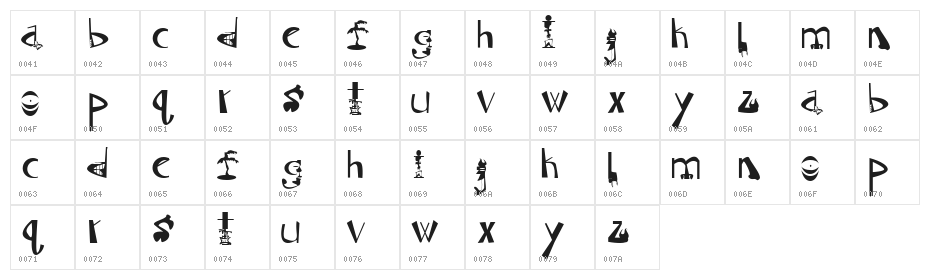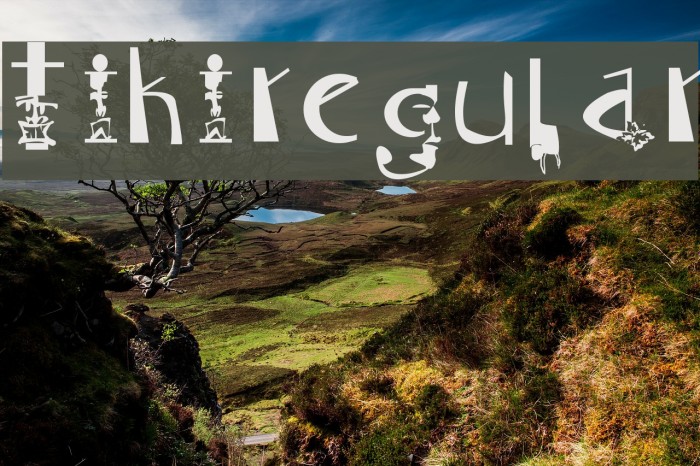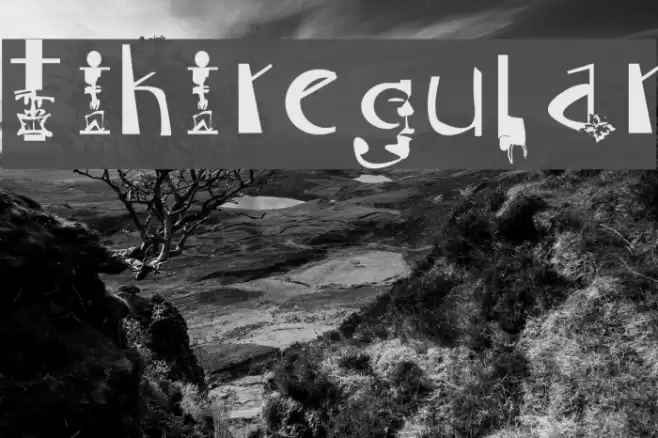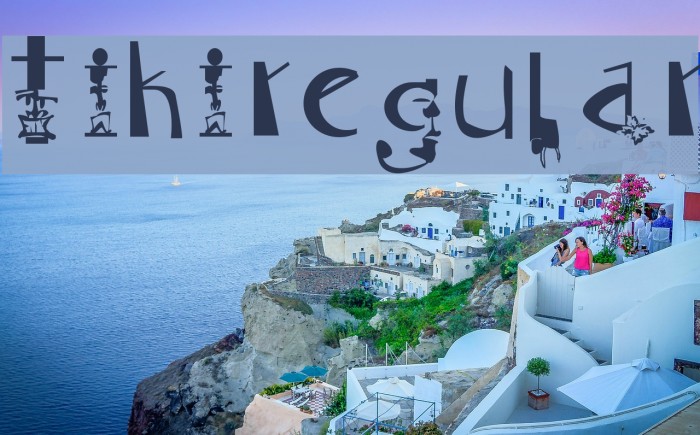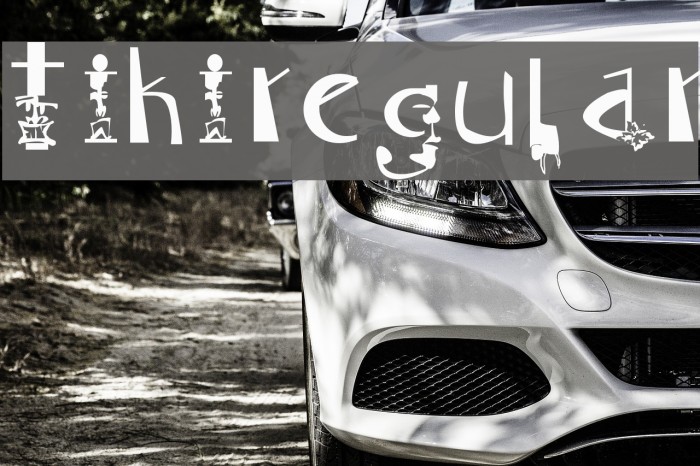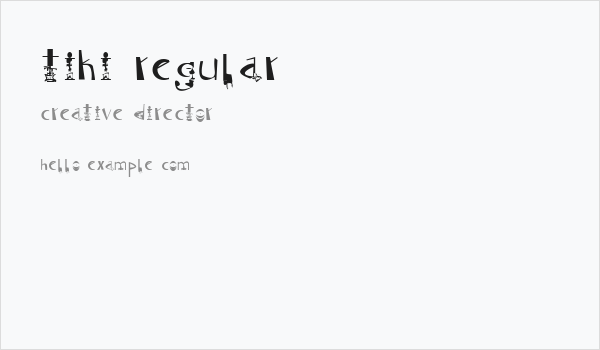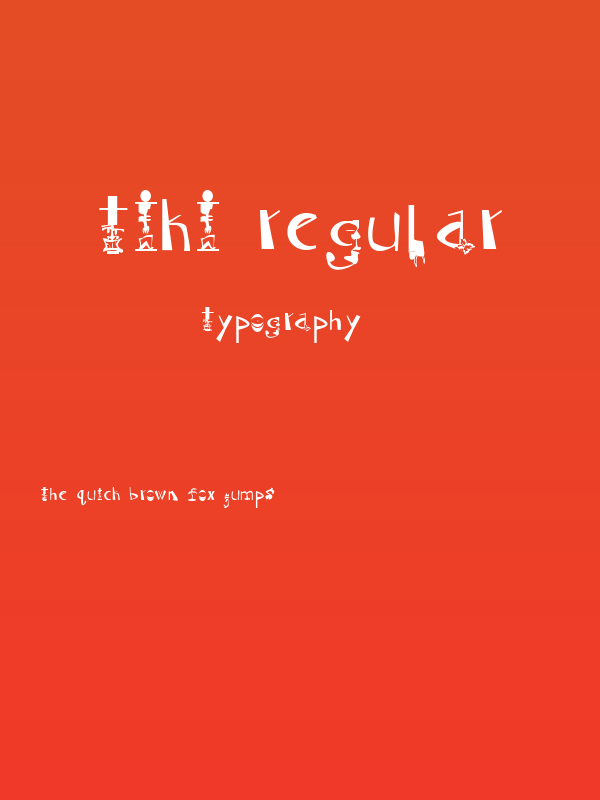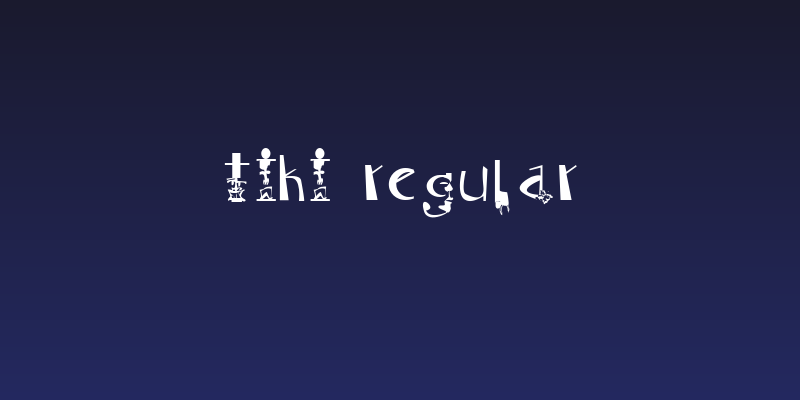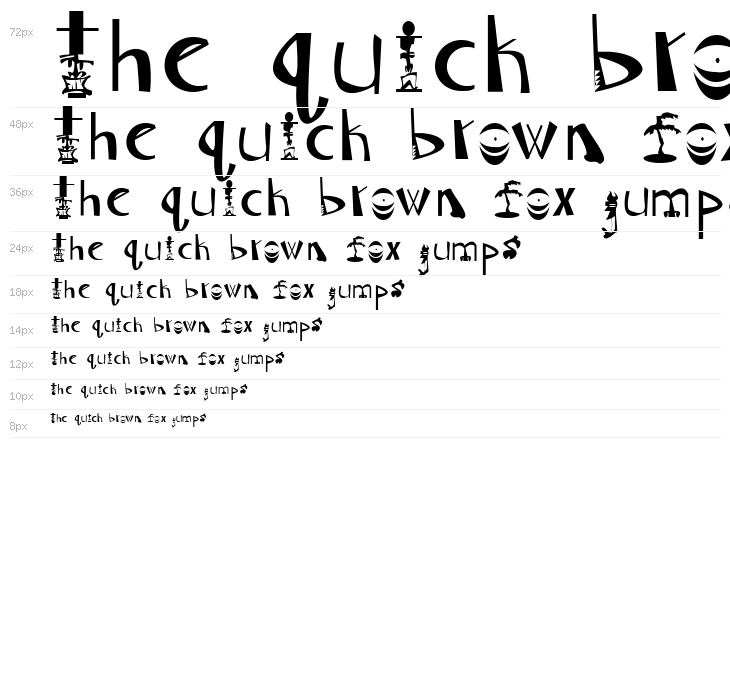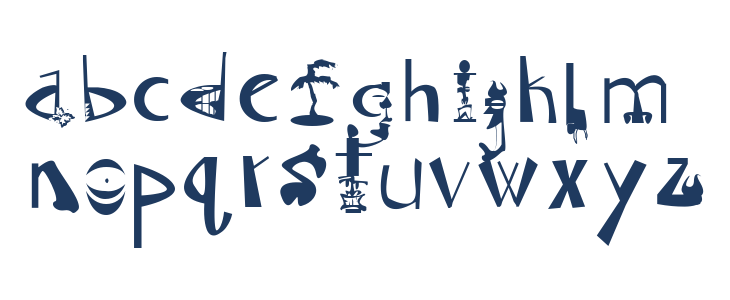
Tiki Regular Font
Tiki Regular Description
This font is a playful and decorative typeface that incorporates elements of tiki culture into its design. Each character is uniquely styled with intricate details, such as palm trees, tiki masks, and other Polynesian-inspired motifs. The letters are bold and eye-catching, making them ideal for creative and themed projects. The whimsical nature of the font adds a sense of fun and adventure, perfect for capturing the essence of tropical and exotic themes. The characters are well-spaced, ensuring readability while maintaining their decorative appeal.
| Proposed Projects | Ideal for tropical-themed posters, party invitations, branding for beach resorts, and creative design projects. |